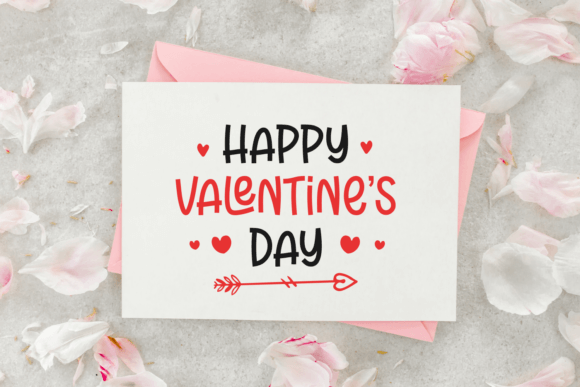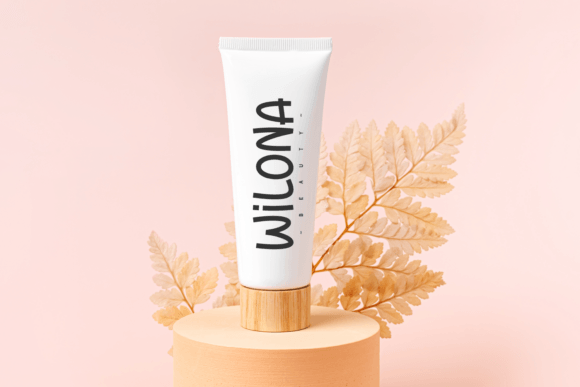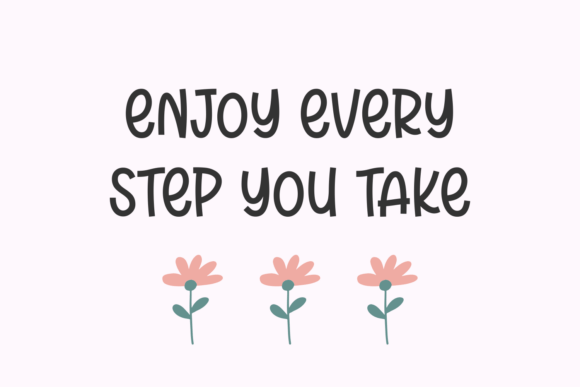
Introduction to Natural Struggle Font
Immerse yourself in the irresistible charm of our Natural Struggle Font, a design that effortlessly intertwines a playful vibe with a sense of warmth.
Brimming with sweetness and freshness, this appealing font breathes life into any text Ideal for trendsetters, its fun and feminine aesthetic, captured in every delicate curve and line, celebrates love in all its myriad forms.